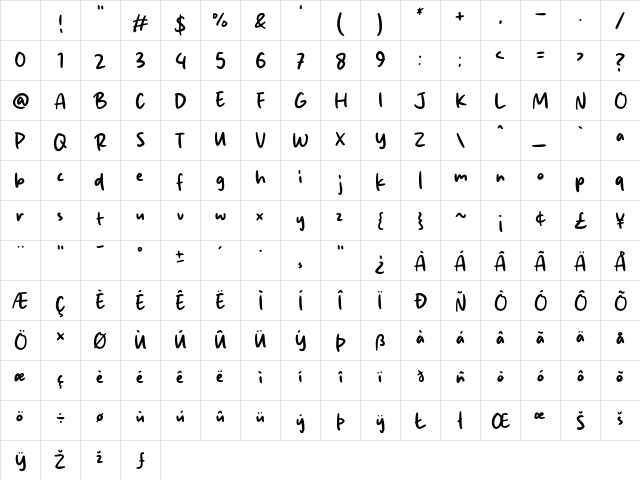
Complete Back Dream Regular glyph index. Displaying only characters natively supported by Back Dream Regular font.
Back Dream is a composed and adaptable typeface that performs quietly and consistently across a wide range of design contexts.